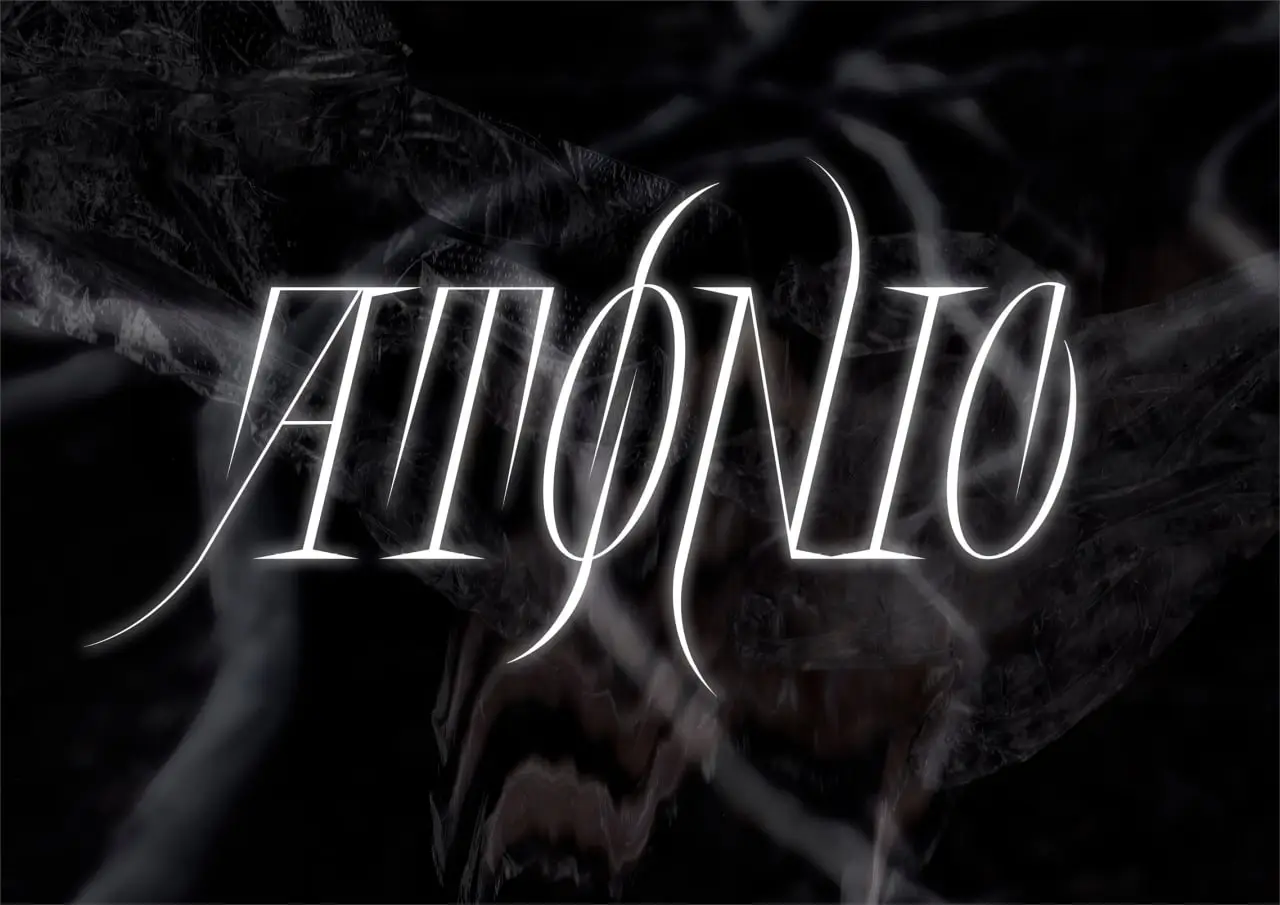
Top 20 Creative Digital Assets & Fonts in the Brushespack Collection Part 97 🎨
🎨✨ Welcome, creative souls! We’re diving into the magical vault of Brushespack Collection Part 97, a treasure trove of 20 stunning digital assets, fonts, and design tools that will ignite your imagination. Whether you’re a branding guru, a web designer, or just someone who loves beautiful typography, this list has something special for you. 🚀 Let’s explore these gems together!
Why Use These Creative Assets & Fonts?
💡 High-quality design assets and unique fonts are the secret sauce to making your projects stand out. From elegant serifs to playful script fonts, each item in this collection is crafted to help you express your unique style, save time, and elevate your work from “meh” to mesmerizing. 🎯
Top 20 Creative Picks from Part 97
Audela By Léa Bruneau, Plamen Motev
🌿 Audela is a stunning digital design asset with a unique, artistic flair from the talented duo Léa Bruneau and Plamen Motev. Perfect for branding, marketing materials, and digital content, it’s a versatile must-have to add a touch of magic to your designs! ✨
A2-Type Register Font Family
🔤 The A2-Type Register Font Family offers versatile, stylish weights perfect for branding and web design. Its modern aesthetic makes it a go-to for both eye-catching headings and readable body text! 🚀
Astroz
🌟 Astroz brings a modern, high-resolution touch to your creative projects! With versatile styles and easy customization, it’s perfect for web design, branding, and everything in between. 🎯
Anthurea-Classic Serif Font
📜 Anthurea-Classic Serif Font combines timeless elegance with superb readability. It’s ideal for branding, logos, and print materials where a sophisticated, classic vibe is a must! ✨
Basquiat Font
🎨 The Basquiat Font channels the raw energy and expressive strokes of street art legend Jean-Michel Basquiat. Perfect for creative projects where you need a bold, distinctive, and artistic statement! 🖌️
Bekstap Font (Personale Use)
✍️ Bekstap Font is a beautifully elegant typeface for personal use, available in Regular and Bold. Perfect for logos, prints, and personal branding projects where you want an effortless touch of class! 🌟
Ascord-Font
💠 Ascord-Font is a modern sans-serif typeface with a clean, contemporary design and multiple weights. Ideal for both digital and print, it brings a sleek and professional feel to any project! 🚀
Berold-Artistic Serif Font Cyrillic
🌍 Berold-Artistic Serif Font Cyrillic blends elegance with Cyrillic character support, making it perfect for diverse language projects. Its stylish serif design adds sophistication to every letter! ✨
Appears-Letterhend Studio
🎭 Appears-Letterhend Studio is a versatile asset mixing modern and classic design elements. High-quality and easy to customize, it’s a perfect tool for elevating your creative projects! 🖌️
Atonic
⚡ Atonic is a modern digital design asset with high-resolution graphics and customizable templates. Perfect for web and print, it gives your projects a sleek, contemporary edge! ✨
Anjhay
🌸 Anjhay is a unique digital design asset designed to seamlessly enhance your creative workflow. High-quality and easy to customize, it’s a versatile pick for branding and other design needs! 🚀
Airesh Font
💎 Airesh Font is a beautifully crafted typeface that balances elegance with modern design. Multiple weights make it perfect for branding, logos, web design, and UI projects! 🎯
Heather Oliver By Hsco
🌺 Heather Oliver By Hsco is a versatile digital design asset with high-resolution graphics and variety of styles. Perfect for adding a unique, artistic flair to any creative project! ✨
Mindset
💡 Mindset empowers you with versatile high-resolution graphics, illustrations, and templates. Tailored for both web and print, it’s a powerful asset to elevate your design game! 🚀
Growler Script
✍️ Growler Script is a flowing, elegant script font that adds personality to branding, logos, and invitations. Multiple weights let you mix and match for that perfect handwritten feel! 🌟
What is Brushespack Collection Part 97?
It’s a curated drop of 20 high-quality design assets, including fonts, graphics, and templates from Brushespack, perfect for branding, web design, and digital art.